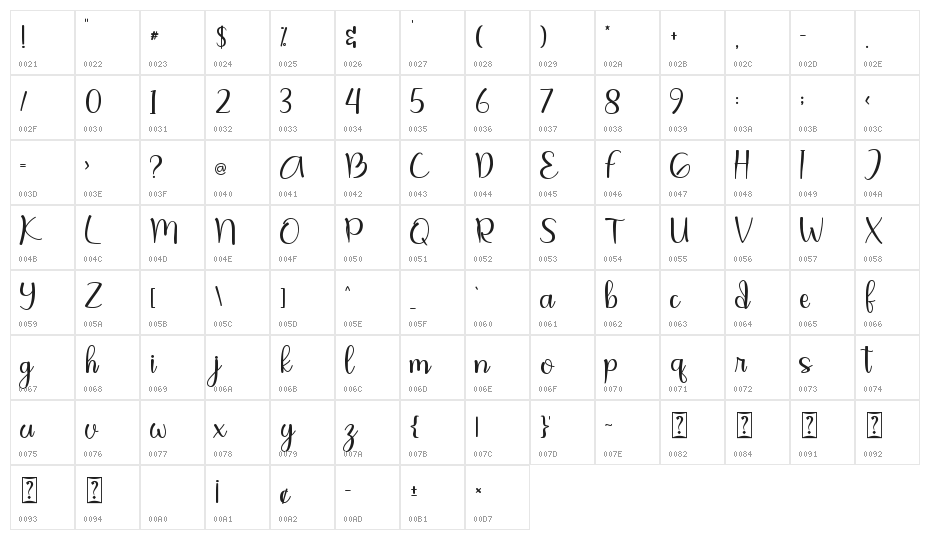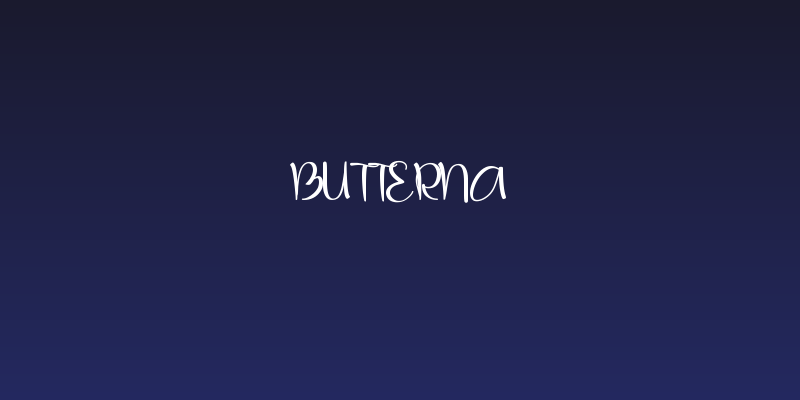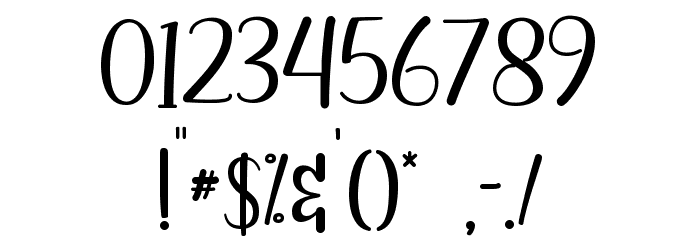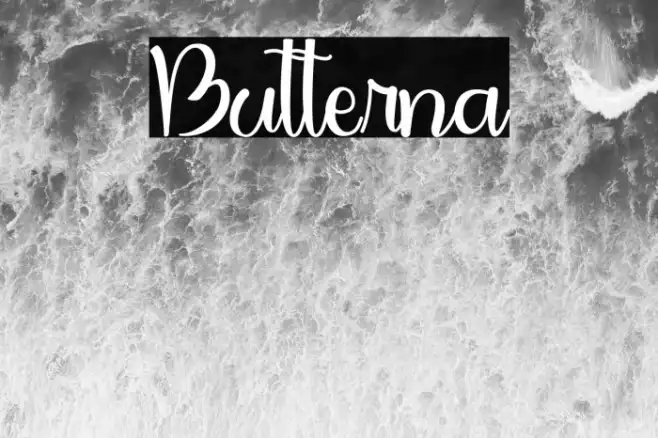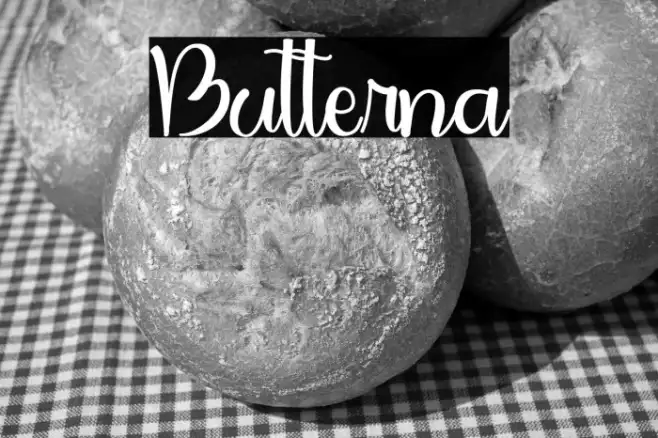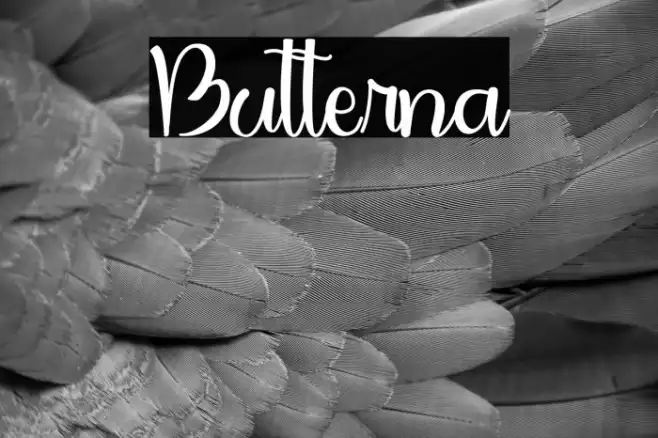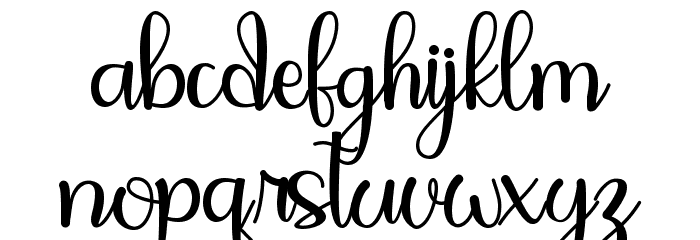
Butterna Font
Butterna Description
This font features a playful and elegant script style with a modern twist. The letters are interconnected with smooth, flowing lines that give it a handwritten appearance. The uppercase letters are bold and slightly elongated, while the lowercase letters maintain a consistent flow with a touch of whimsy. The numbers and special characters complement the overall style, maintaining the same fluidity and elegance. This font is perfect for projects that require a personal touch, such as invitations, greeting cards, or branding materials. Its unique style makes it stand out while remaining legible and stylish.
| Proposed Projects | Ideal for invitations, greeting cards, branding, and personal projects. |